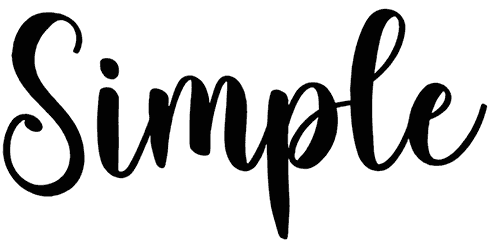
Simple Font
Introducing Simple, a charming calligraphy font with such an attractive style. Despite its name, it is structured in a complex yet professional way without putting readability in danger.